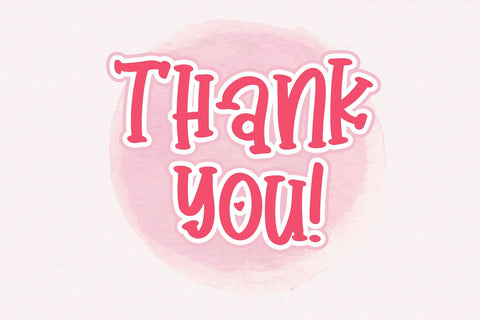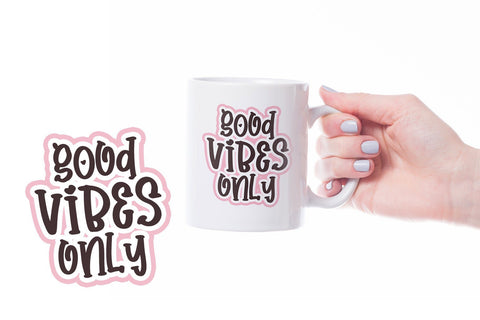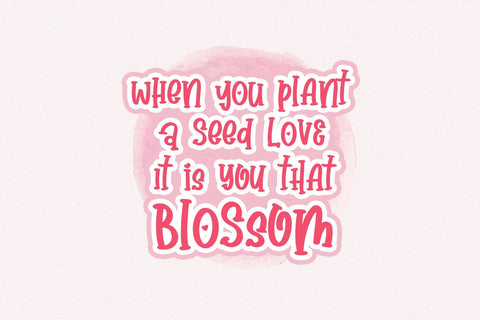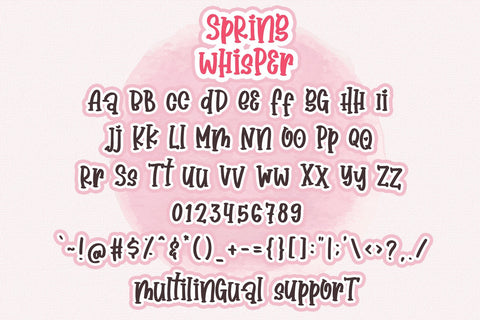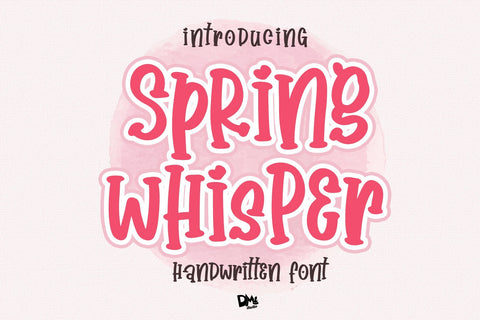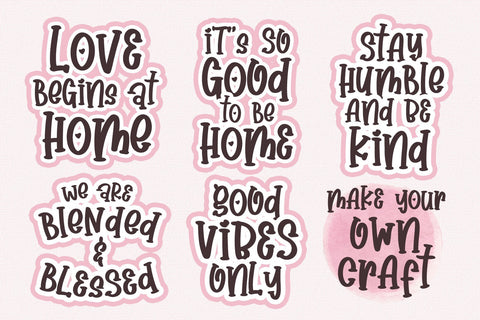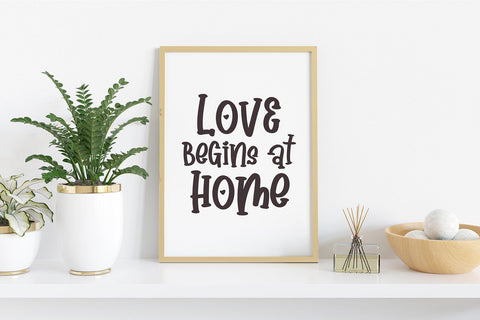
Spring Whisper - Handwritten Crafty Font
Spring Whisper, is a cute, crafty, whimsical and lovely handwritten Font.
This font really will make your day! It has a friendly looks, lovable and give a fantastic touch for your craft project!
Change the case between uppercase and lowercase to get different style, in one font, no need additional software!
- 2 Different characters style by activating and deactivating the Caps lock
- Numeric
- Symbols & Punctuation